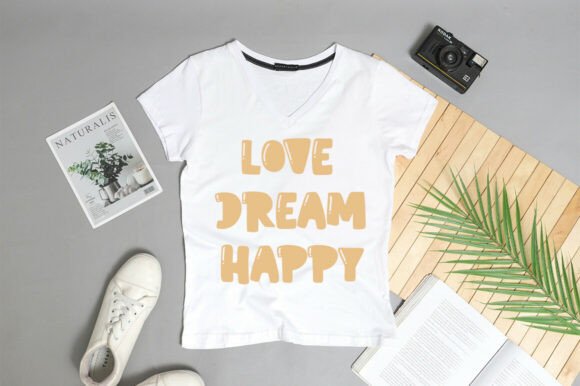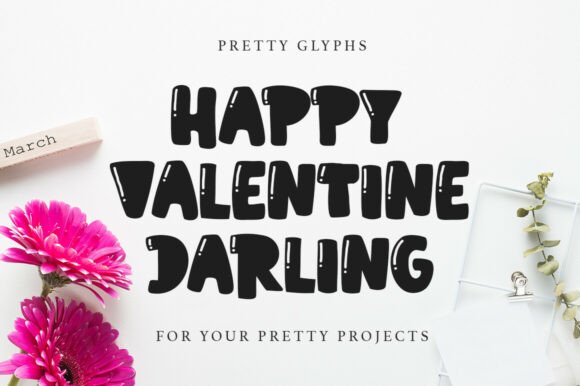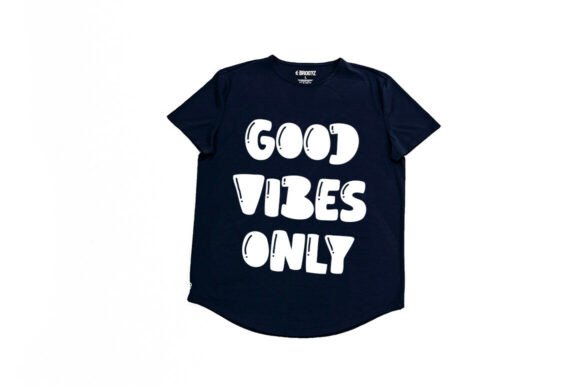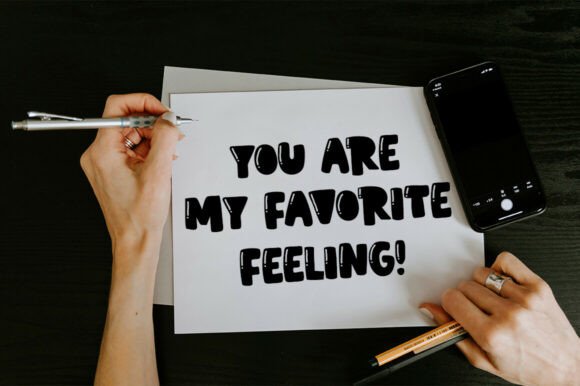
Introduction to Shine Square Font
Shine Square font is a bold, bubbly display typeface that practically jumps off the page with its high-gloss energy.
This playful Shine Square typeface features thick, rounded letterforms accented with โshineโ highlights that give it a fun, 3D balloon-like effect It is the perfect Shine Square font for childrenโs toy packaging, birthday party invitations, or vibrant summer-themed merchandise.
Key Features of Shine Square Font